Today, Instapaper launched version 10 of its iPhone and iPad app with several improvements, along with a major redesign of the web-based platform. Here are the details.
’Our biggest update to the iOS app in over a decade’
Instapaper announced today (via MacMagazine) an update to its iOS app, alongside new AI Voices for the Android app, and an overhauled website.
Instapaper 10 for iOS adds support for Liquid Glass and introduces four reading fonts:
- Literata: Serif font designed by Google for Google Play Books.
- New York: Serif font designed by Apple for iOS.
- Open Sans: Sans-serif font commissioned by Google.
- Atkinson Hyperlegible: Sans-serif font developed by the Braille Institute.
The update also introduces Home Screen widgets, which Instapaper says can display your current article and most recently saved items, while doubling as a one-tap shortcut to start reading.
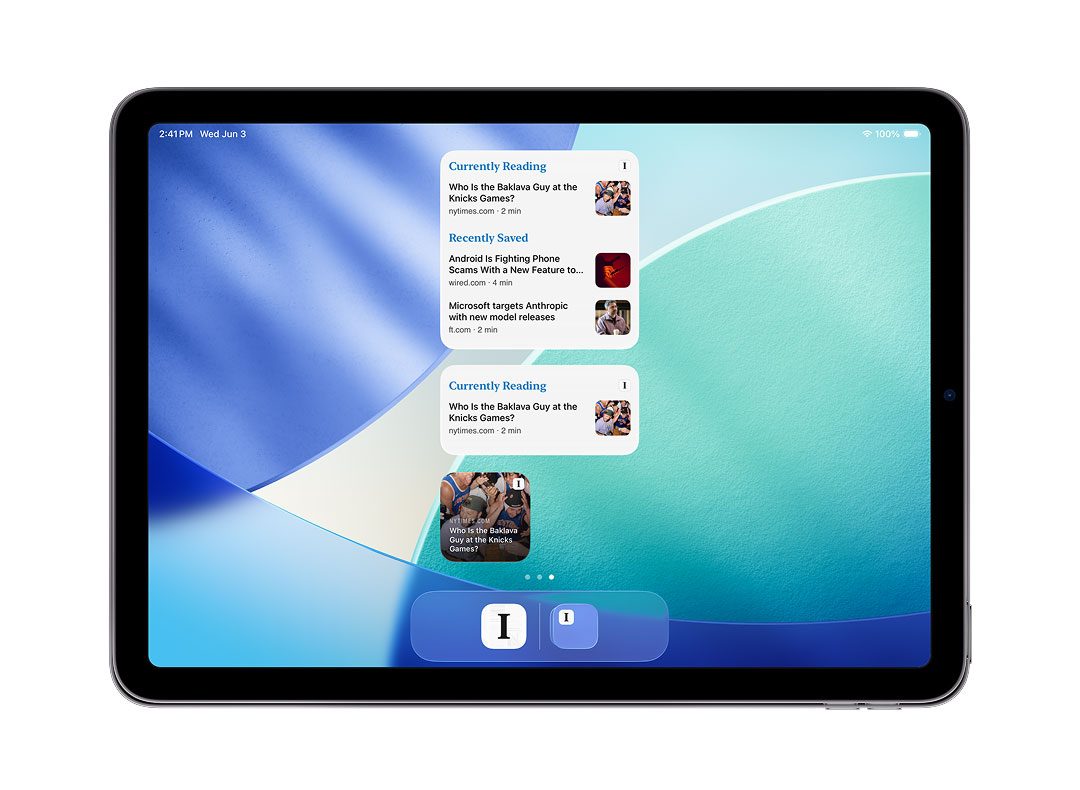
For iPad users, Instapaper says the update improves multitasking, while both iPhone and iPad users will notice more reliable background syncing, reduced article download times, and a redesigned onboarding.
Instapaper says today’s update is its biggest in over a decade, and it also includes:
- Section Counts: All sections now display a count of the articles or notes they contain. If section counts feel more anxiety-inducing than helpful, you can turn them off in Settings > Behavior > Section Counts.
- Section Sorting: To sort your Folders or Tags, tap the “…” menu next to the section header and choose your preferred sort option.
- Article List Appearance: We introduced Condensed View, new typography and styles, and an easy way to adjust the article list’s appearance. From an article list, tap “…”, then tap “Appearance” to adjust styles, fonts, and image thumbnails.
Finally, Instapaper completely overhauled its web-based platform, adding features such as a 3-column reader and keyboard shortcuts, while the Android app now supports AI Voices.